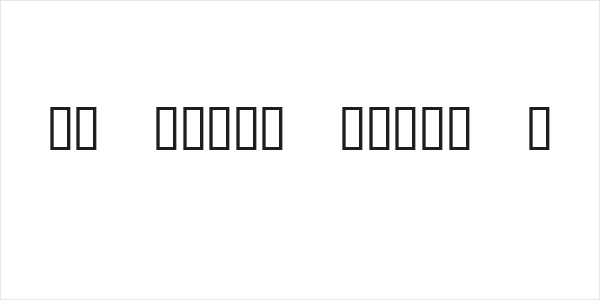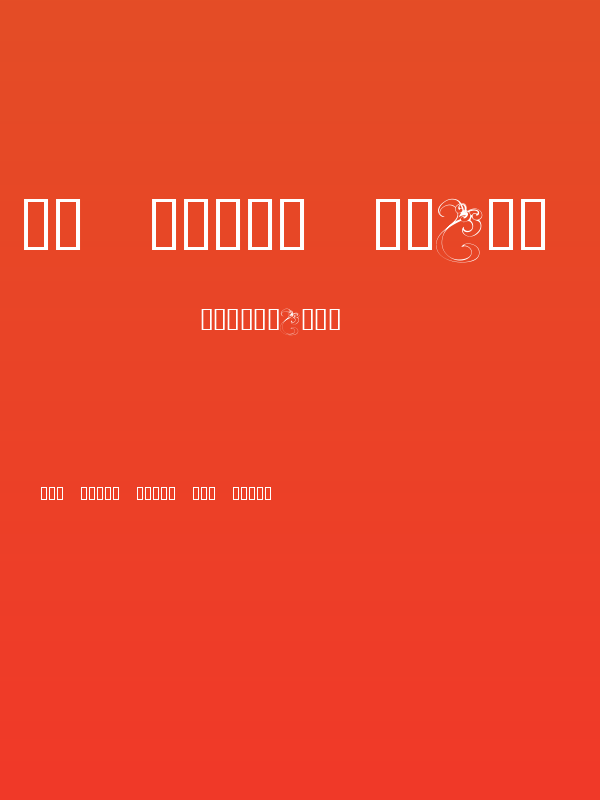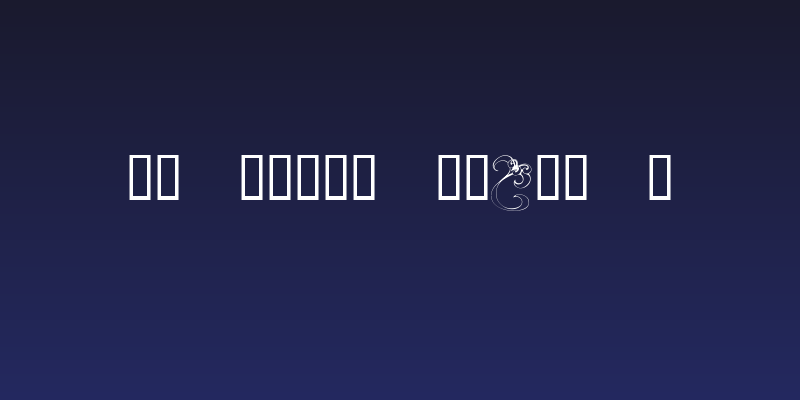
KR Fleur Flair 1 Font
KR Fleur Flair 1 Description
This font is a highly decorative and ornate typeface, characterized by its intricate swirls and flourishes that extend from the main strokes of each character. The elaborate design gives it an elegant and sophisticated appearance, reminiscent of vintage calligraphy or baroque art. Each letter is a work of art, with flowing lines that intertwine and create a sense of movement and grace. The font is not suitable for body text due to its complexity, but it excels in creating a dramatic and artistic impact in headlines or decorative elements.